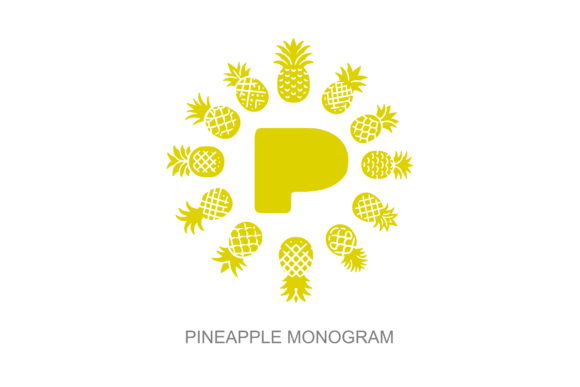
Pineapple Monogram Font: Unlocking Endless Creative Possibilities
In the world of typography, few fonts have managed to capture the essence of whimsy and charm as effectively as the Pineapple Monogram Font. This delightful decorative font is bursting with youthful energy, making it the perfect addition to any artistic project. With its endless variants and enchanting character, Pineapple Monogram is set to revolutionize the way you approach design, infusing a spirit of happiness into every venture.
The Story Behind Pineapple Monogram
The Pineapple Monogram Font is more than just a typographic creation; it’s an experience. Born out of a desire to bring authenticity and playfulness into the world of design, this font is the brainchild of talented designers who sought to craft a unique and captivating visual language. By combining the sweetness of pineapples with the elegance of monograms, they’ve created a font that’s equal parts fun and sophisticated.
Characteristics of Pineapple Monogram Font
So, what makes Pineapple Monogram Font so special? Here are just a few of its standout features:
- Whimsical Design: Pineapple Monogram Font boasts a playful, hand-drawn design that’s perfect for projects that require a touch of personality.
- Endless Variants: With a vast array of alternative characters, you can create unique and customized designs that reflect your artistic vision.
- Monogram Style: The font’s monogram style allows for effortless creation of personalized designs, making it ideal for branding, logos, and more.
- Youthful Charm: Pineapple Monogram Font exudes a sense of youthful energy, making it perfect for projects aimed at a younger audience.
Unlocking Creative Possibilities
With Pineapple Monogram Font, the creative possibilities are endless. Whether you’re a seasoned designer or a DIY enthusiast, this font offers a world of opportunities for artistic expression. Here are just a few ways you can use Pineapple Monogram to elevate your designs:
- Branding and Logos: Create unique and memorable logos that capture the essence of your brand.
- Stationery and Invitations: Add a touch of whimsy to your stationery, invitations, and greeting cards.
- Digital Art: Use Pineapple Monogram Font to create stunning digital art pieces that showcase your creativity.
- Web Design: Enhance your website’s typography with Pineapple Monogram Font, adding a dash of personality to your online presence.
Tips for Using Pineapple Monogram Font
To get the most out of Pineapple Monogram Font, here are some expert tips:
- Experiment with Variants: Don’t be afraid to try out different character variants to create a unique look.
- Mix and Match: Combine Pineapple Monogram Font with other fonts to create visually striking typography.
- Play with Colors: Add an extra layer of personality to your design by experimenting with different colors and textures.
- Keep it Simple: Don’t overcomplicate your design – sometimes, simplicity is the best way to let Pineapple Monogram Font shine.
The Benefits of Using Pineapple Monogram Font
So, why choose Pineapple Monogram Font for your next project? Here are just a few benefits you can expect:
- Authenticity: Pineapple Monogram Font brings a touch of authenticity to your designs, setting you apart from the crowd.
- Creativity: With its endless variants and whimsical design, Pineapple Monogram Font inspires creativity and artistic expression.
- Happiness: This delightful font is guaranteed to bring a smile to your face and a sense of joy to your designs.
- Versatility: Pineapple Monogram Font is suitable for a wide range of projects, from branding and logos to digital art and web design.
In conclusion, Pineapple Monogram Font is a game-changer for designers and artists looking to add a touch of whimsy and charm to their work. With its endless variants, monogram style, and youthful energy, this font is set to unlock a world of creative possibilities. Whether you’re looking to create stunning branding, beautiful stationery, or eye-catching digital art, Pineapple Monogram Font is the perfect choice. So why wait? Dive into the world of Pineapple Monogram and discover a world of enchantment with every keystroke.
- What is Pineapple Monogram Font? Pineapple Monogram Font is a decorative font with a whimsical design, featuring a monogram style and endless variants.
- Can I customize Pineapple Monogram Font? Yes, with its endless variants, you can customize Pineapple Monogram Font to create a unique look that reflects your artistic vision.